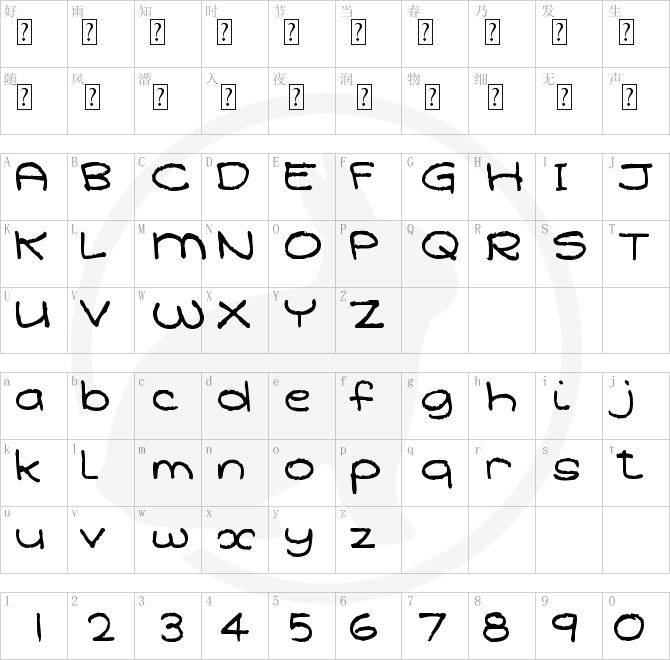
- Font Name:Qarolina
Qarolina.ttf is a very beautiful artistic font, Qarolina.ttf is widely used in the design and printing of various books and pictures,Qarolina.ttf has a strong visual impact,Qarolina.ttf is a commonly used font in newspapers, magazines and books, and is used in posters, e-commerce Poster design, store design, logo design, font design and other fields.Qarolina.